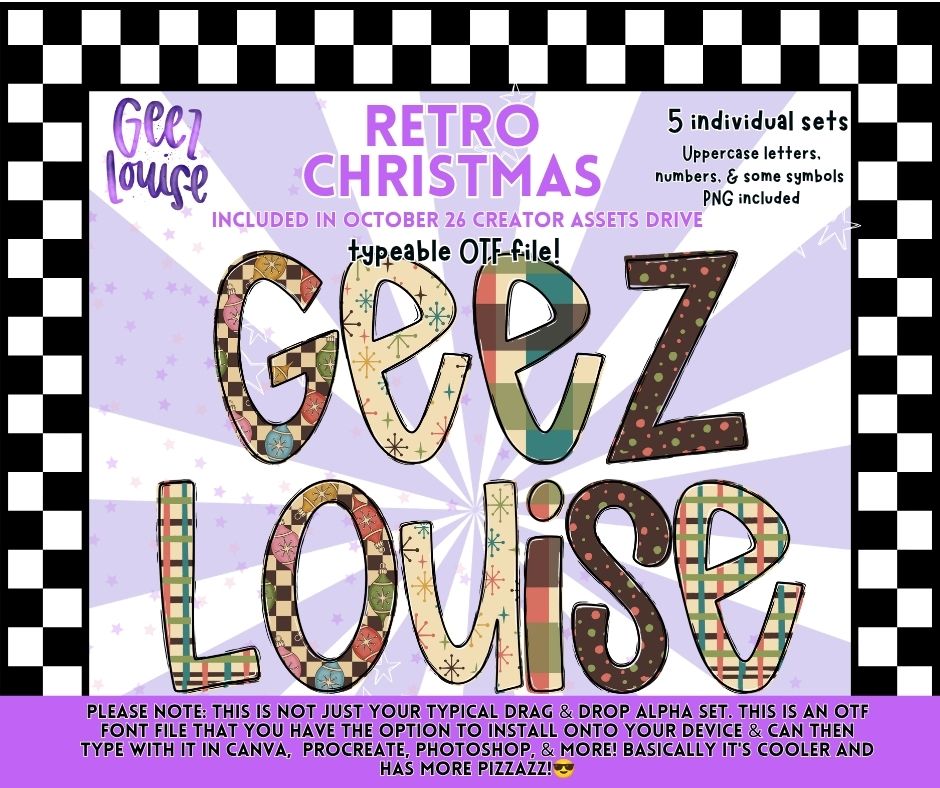
Retro Christmas Alpha Bundle | 5 OTF Fonts + PNG Alphabets
A retro Christmas alpha bundle featuring 5 coordinating holiday patterns, including vintage ornaments, atomic stars, plaid, stripes, and festive dots. Includes 5 typeable OTF fonts plus uppercase letters, numbers, and select symbols as individual PNG files. 🎄✨